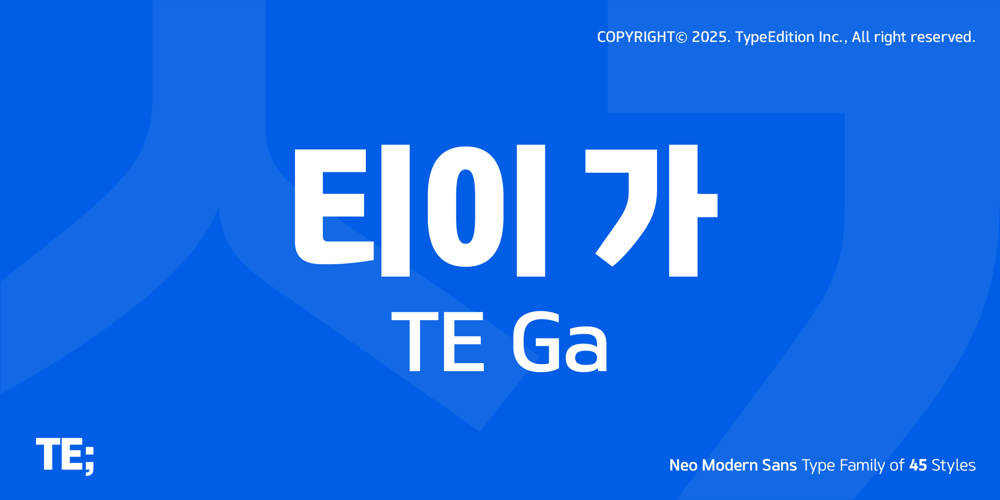
TE Ga Font Family was designed by Hyun-Seung Lee and published by Typeedition. TE Ga contains 45 styles and family package options. TE Ga Family is a futuristic, neo-modern sans-serif typeface that is clean, simple and highly readable. Letters in this type family are designed with geometric shapes without any decorative distractions. The spaces between individual letter forms are precisely adjusted to create the perfect typesetting. TE Ga is a versatile type family of 45 fonts. TE Ga family consists of 9 weights (Thin, ExtraLight, Light, Regular, Medium, Bold, ExtraBold, Heavy & Black) & 5 widths (Condensed, Semi-Condensed, Normal, Semi-Expanded & Expanded). TE Ga family contains 11,172 Korean(Hangul) letters, complete MS-1252 Latin, MS-1251 Cyrillic, MS-1250 Central European, MS-1254 Turkish character sets. Each font includes proportional figures, tabular figures, numerators, denominators, superscript, scientific inferiors, subscript, fractions and case features. We highly recommend it for use in books, web pages, screen displays, and so on.